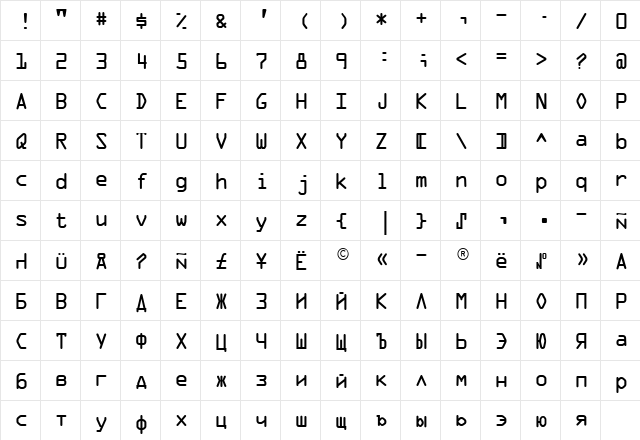
Akciz TYGRA Regular
| Designer | Russian Edition by Dmytry Manoshin,, |
Design Context for Akciz TYGRA Typeface
Akciz TYGRA takes a measured approach to typography — its balanced proportions and neutral character make it a reliable workhorse for both digital and print work.